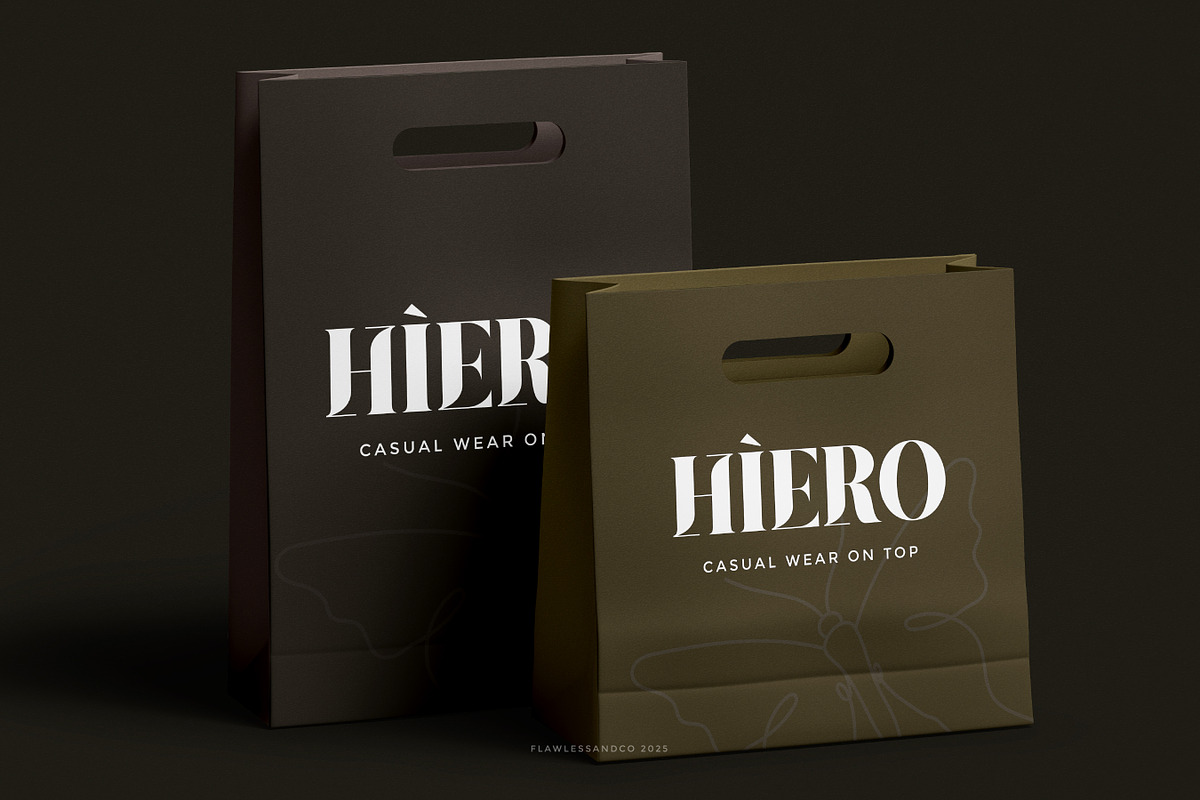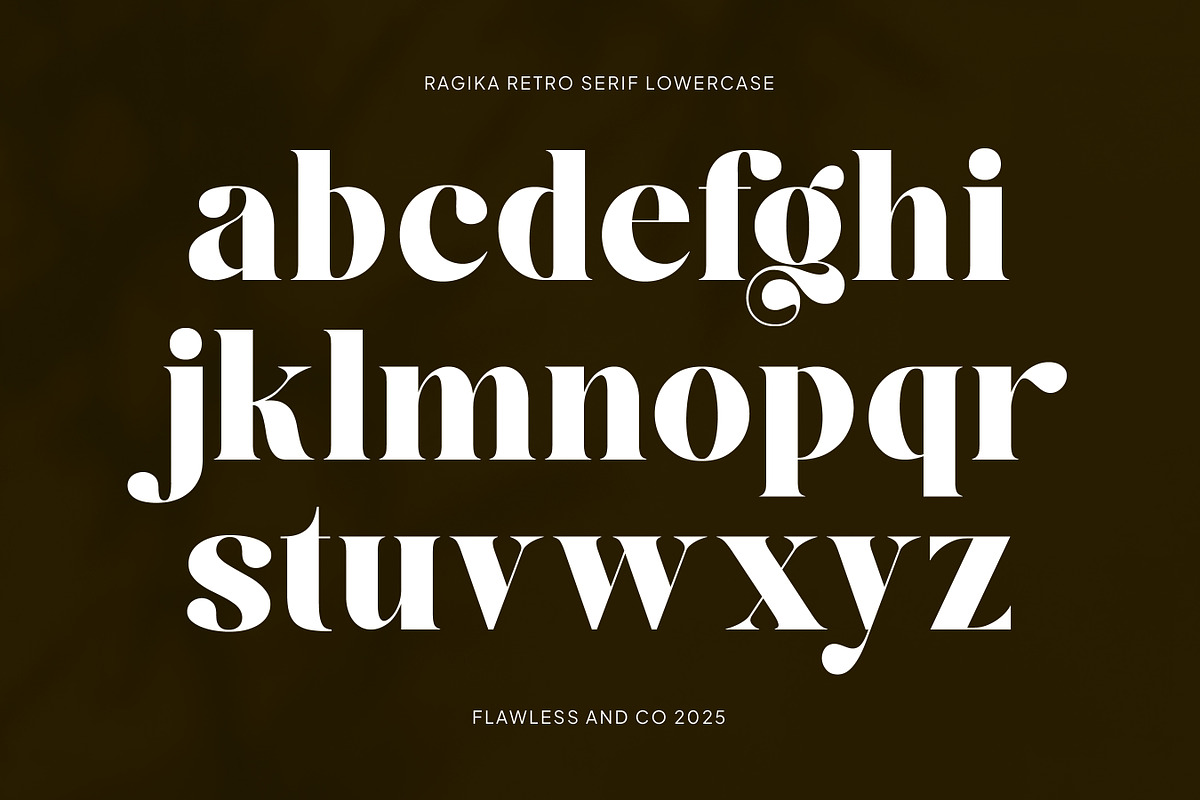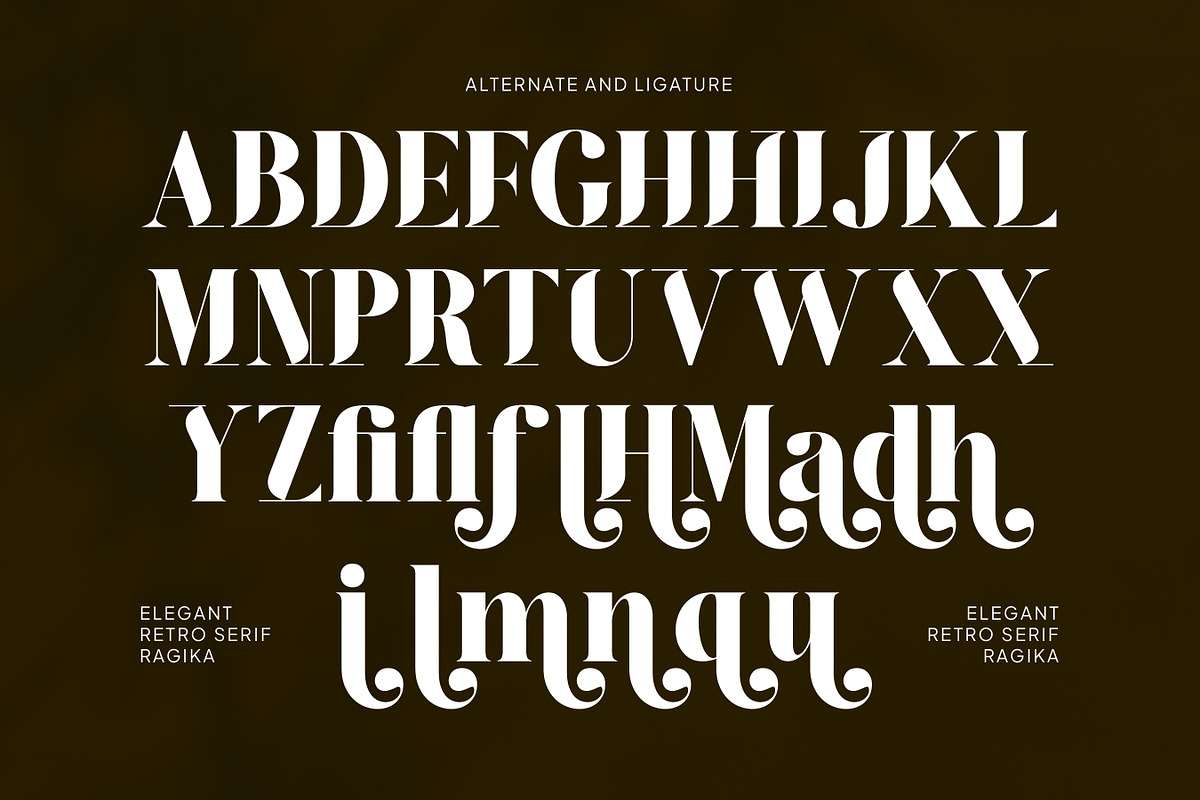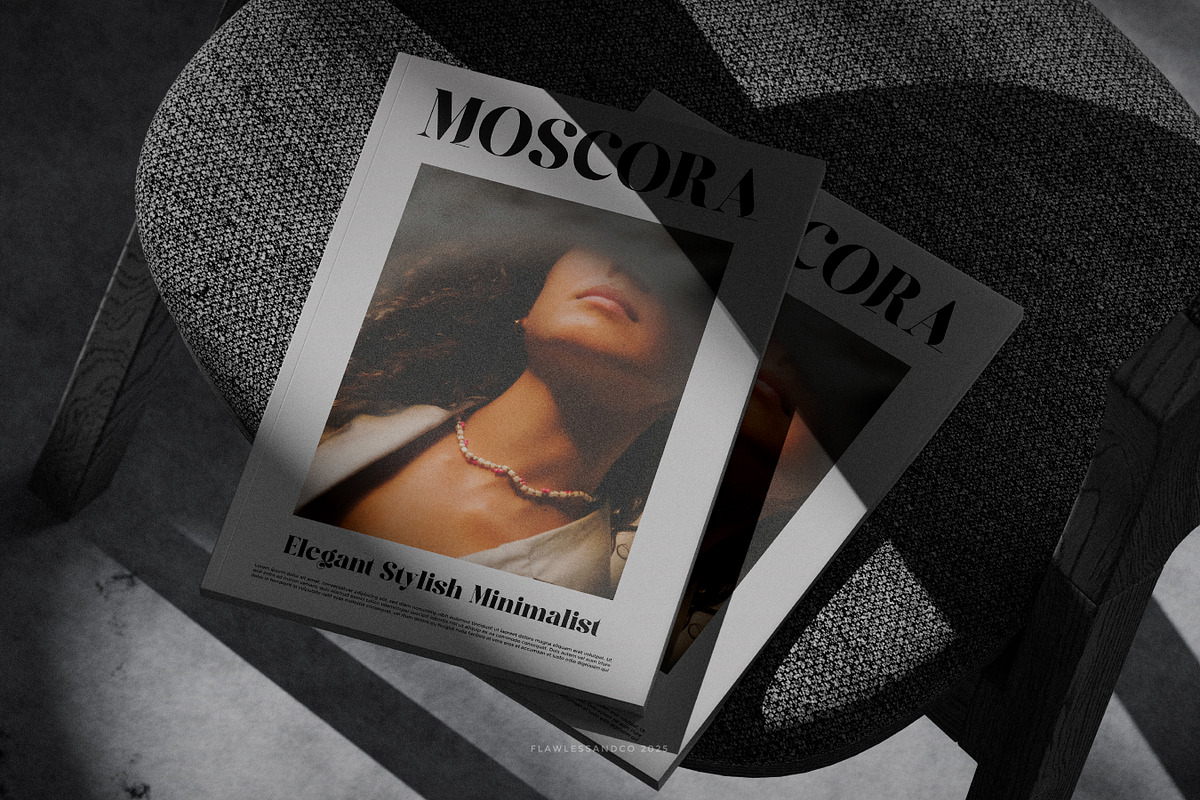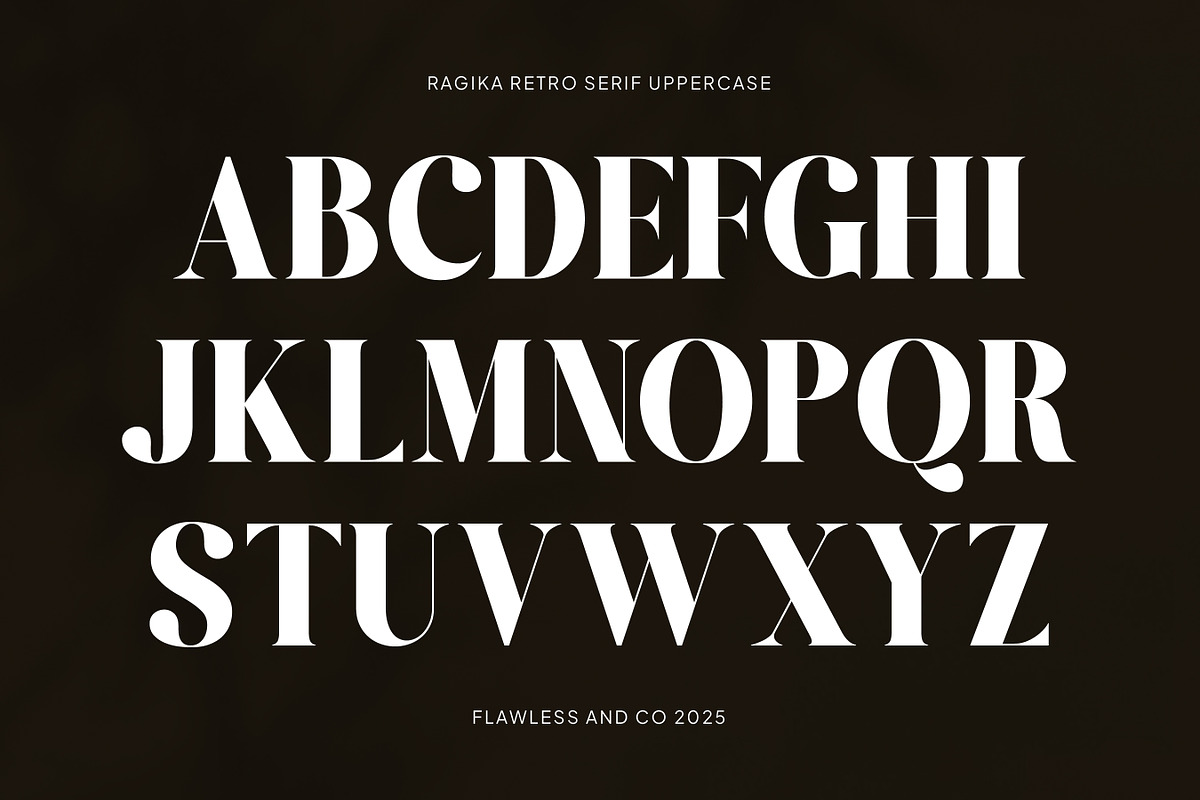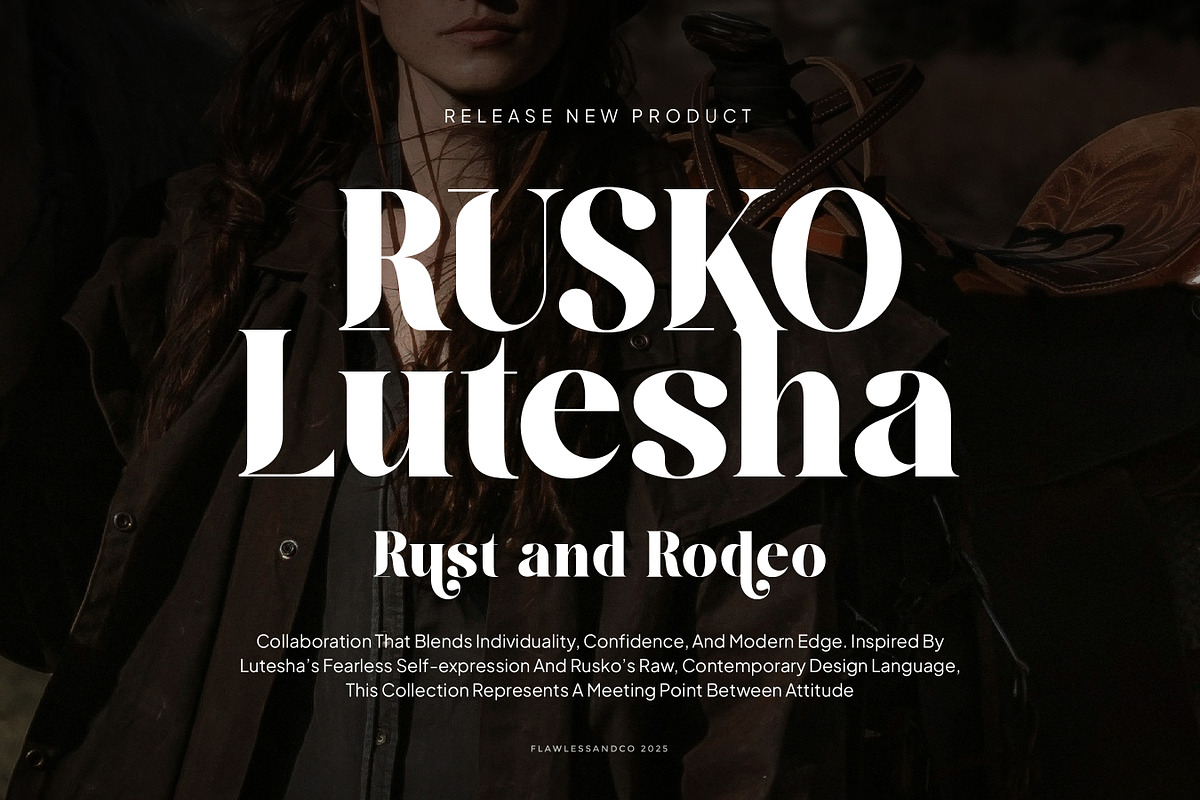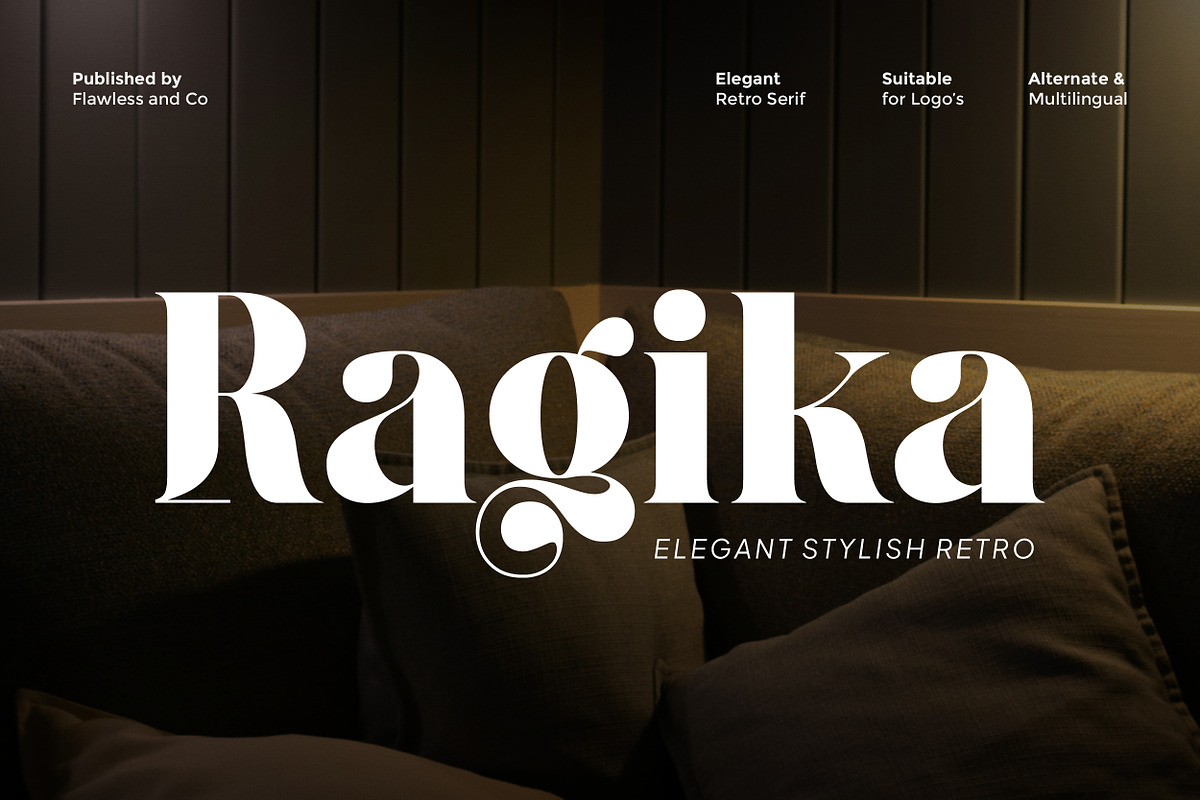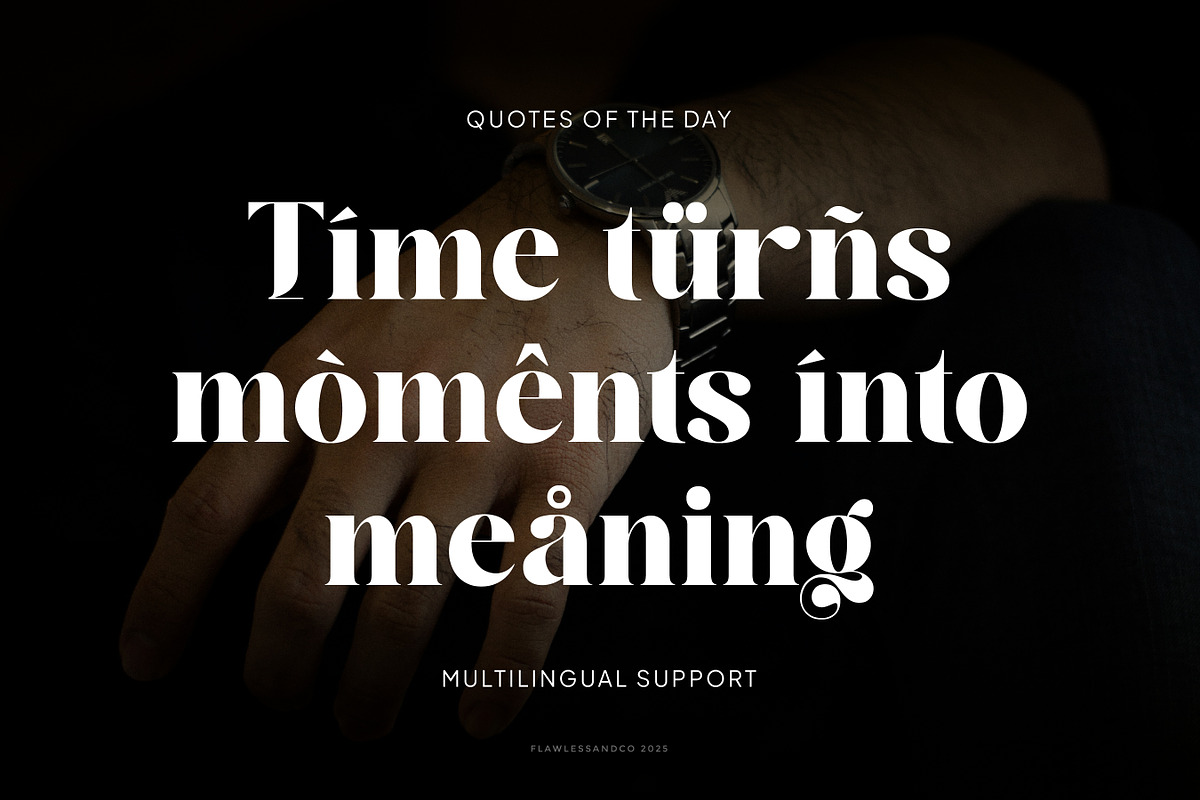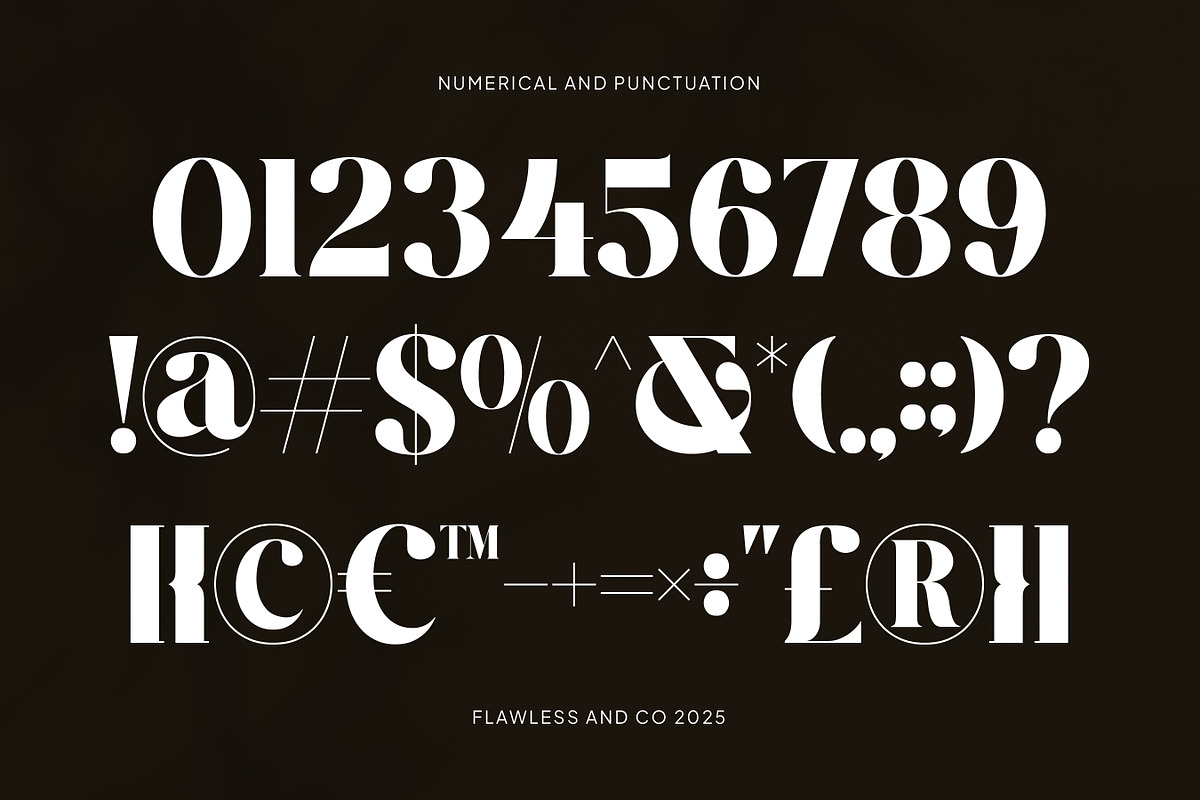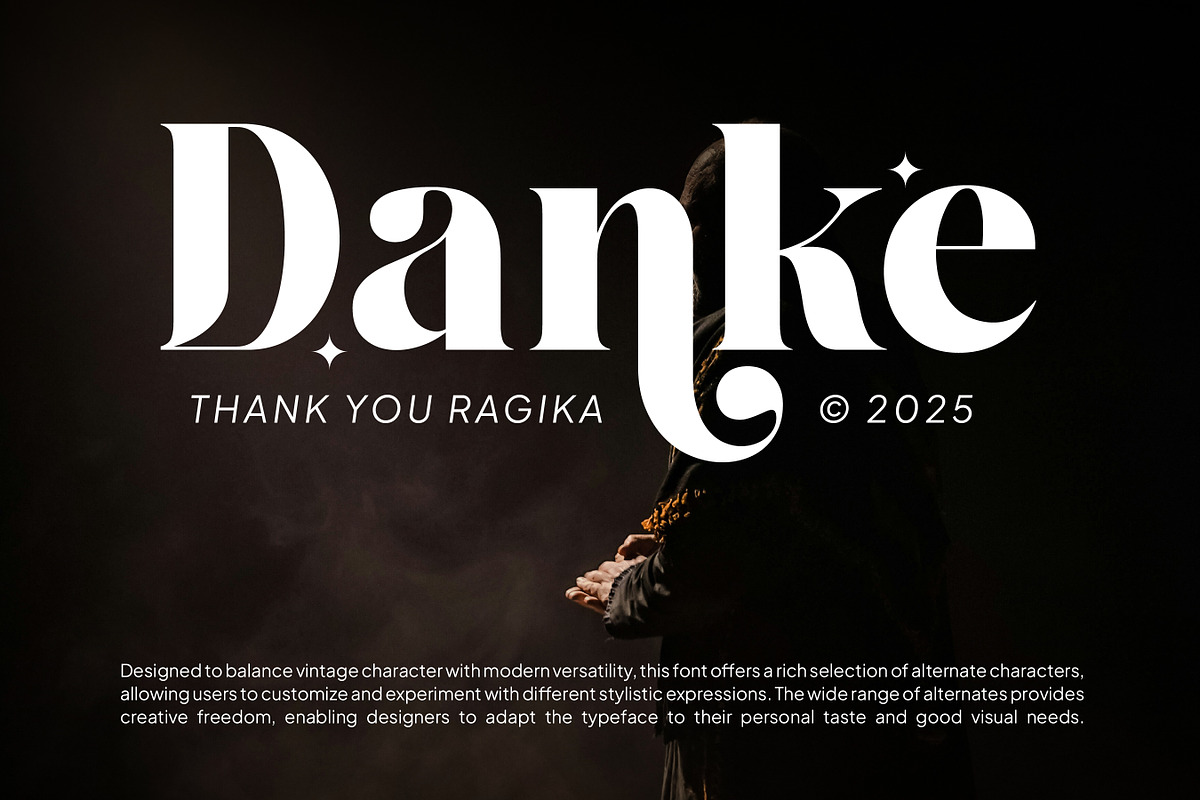
Ragika - Elegant Retro serif
Ragika is an elegant retro serif font that blends classic charm with a stylish modern touch. Inspired by vintage typography, Ragika features graceful curves, bold serifs, and refined details that bring warmth and personality to any design. Its timeless retro feel makes it perfect for creating designs that feel both nostalgic and sophisticated.
Uppercase & Lowercase Alternates & Ligatures Numerals & Punctuation Multilingual Support
Who Should Use Ragika?
Ragika is perfect for designers and creators who want to bring an elegant retro character into their work. It’s ideal for brand and logo designers looking to create a timeless identity with a vintage feel, as well as creatives working on fashion, lifestyle, or boutique brands. Ragika is also well-suited for graphic designers designing posters, packaging, editorial layouts, and marketing materials that need a stylish yet classic touch.
Why Choose Ragika for "Brand and Logo" Projects?
Ragika is the perfect choice for brand and logo projects because it combines elegant retro character with a refined serif structure. Its stylish curves and balanced letterforms create a strong, memorable identity while maintaining a premium and professional feel, making your branding stand out with timeless charm.
Suitable for:
Luxury brand & logo design Fashion, beauty, and lifestyle branding Editorials, magazines, and lookbooks Premium packaging design Wedding invitations & event branding High-end social media and marketing visuals